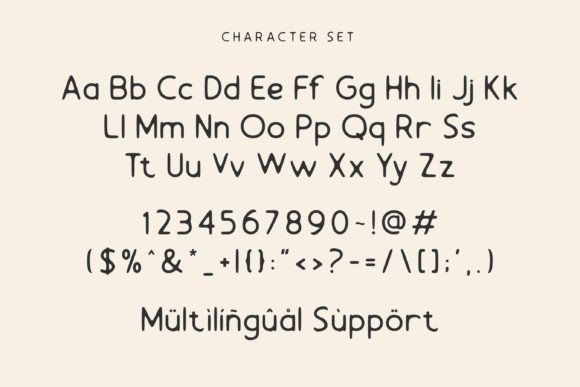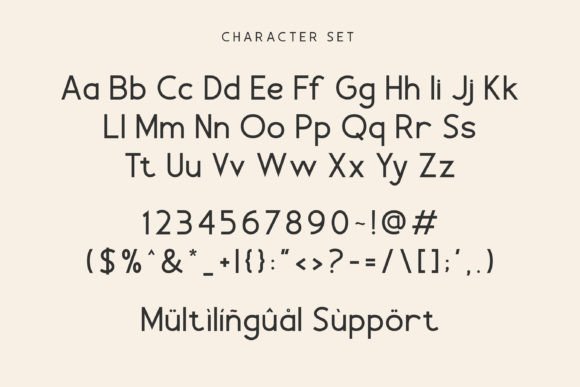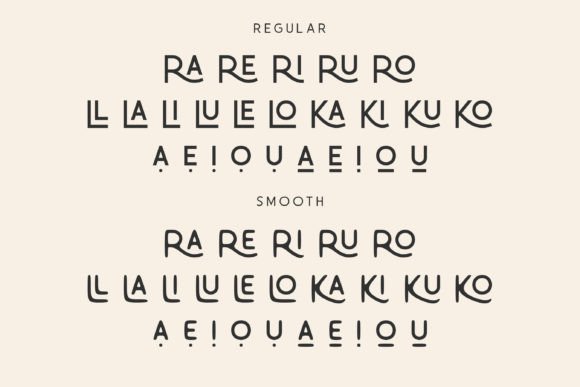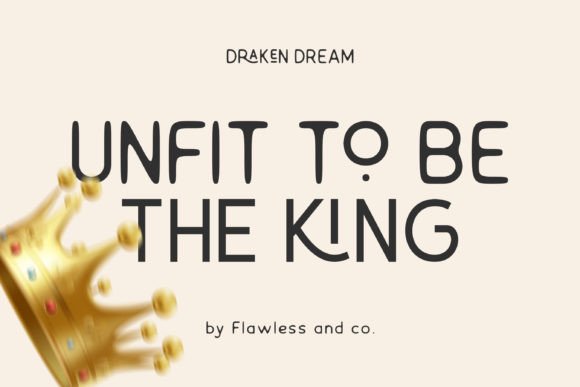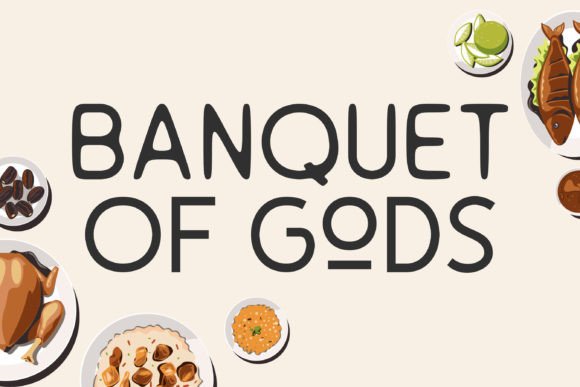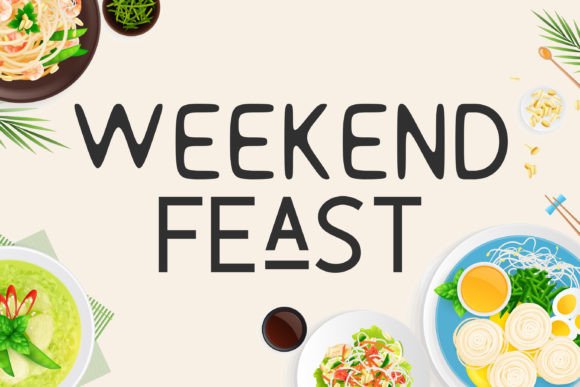
Introduction to Draken Dream Font
Introducing “Draken Dream” – A Modern Elegant Sans Duo Font.
Experience the epitome of modern elegance with “Draken Dream,” a striking sans-serif font duo that seamlessly marries sophistication with contemporary design With its versatile duo of regular and smooth styles, “Draken Dream” offers a dynamic combination that’s perfect for a range of creative projects.
Key Features of Draken Dream Font
Why Choose Draken Dream Font?